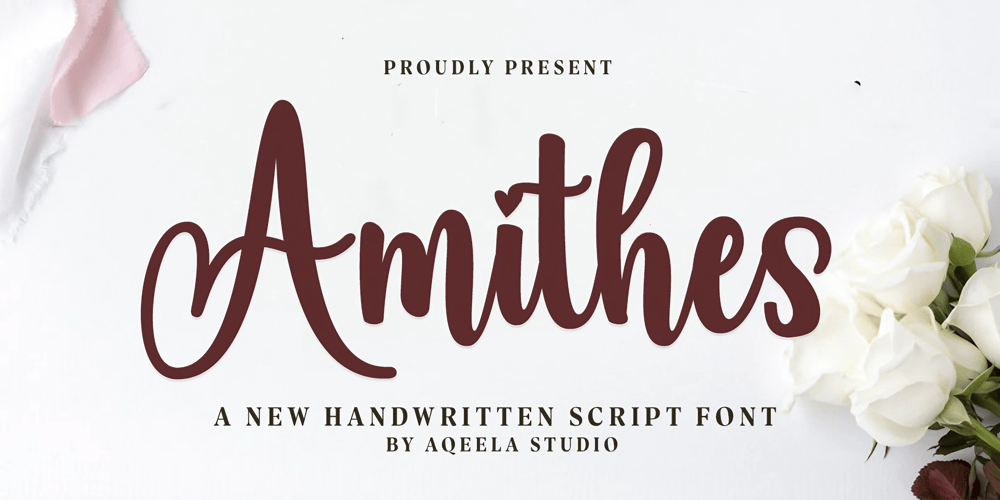
Amithes
Amithes font
Amithes Font Family was designed by Muhammad Nasir and published by Aqeela Studio. Amithes contains 1 styles and family package options. Amithes is a lovely handwritten font with a laid-back elegance and a sense of freshness. Its organic lines and flowing strokes give it a carefree vibe that makes it ideal for a variety of design projects. Amithes brings a warm and distinct touch to branding, invites, and social media visuals.